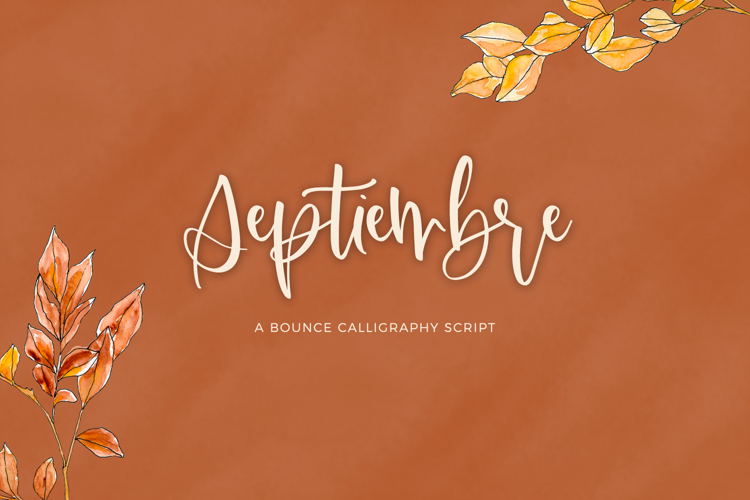
Introducing Septiembre Script, a modern bounce calligraphy font with alternates and ligatures.
Septiembre includes:
- 32 lowercase alternate characters
- 5 ligatures - er, ll, oo, rr, and tt